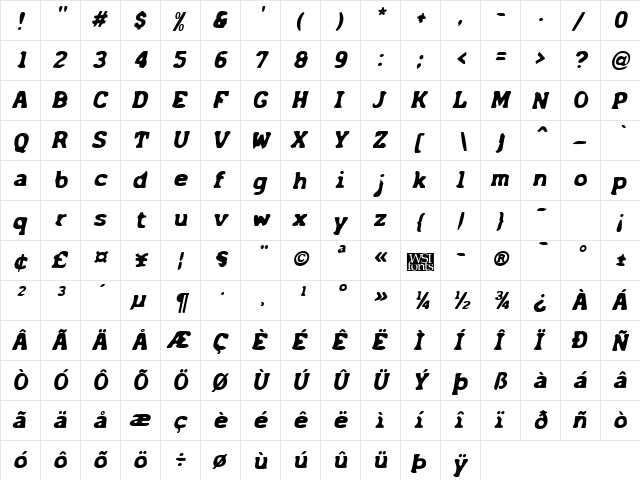
Acck Italic
Design Context for Acck Typeface
Acck is a composed and adaptable typeface that performs quietly and consistently across a wide range of design contexts. Its italic angle brings a sense of urgency and motion to the letterforms.
Pro Tip: Try Acck for annotation and caption copy alongside an upright companion — the contrast in angle creates a dynamic but ordered typographic system.